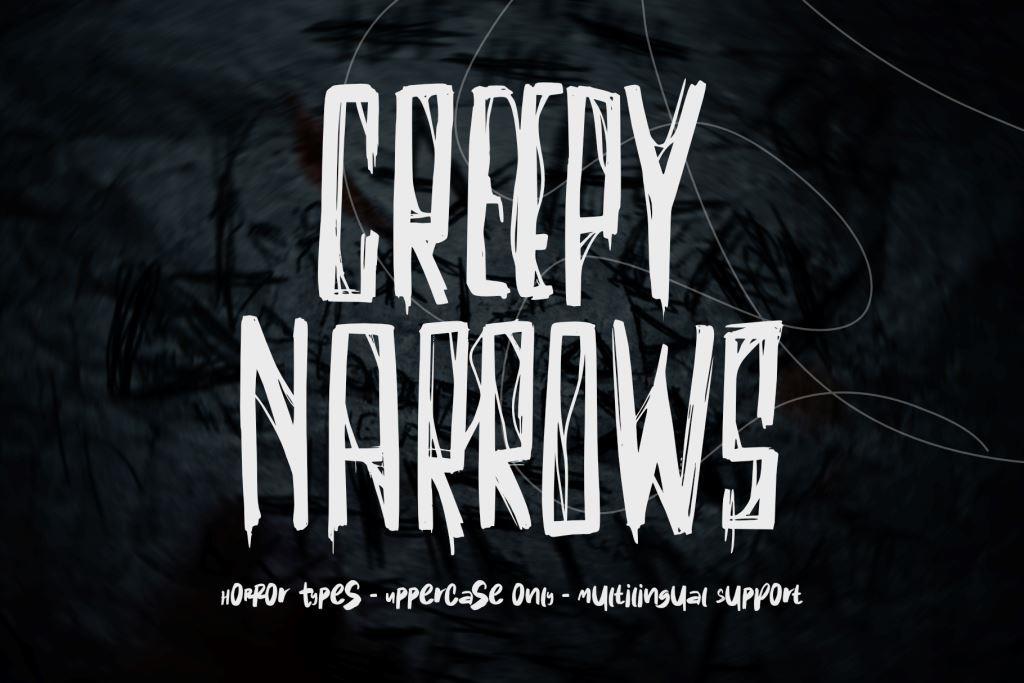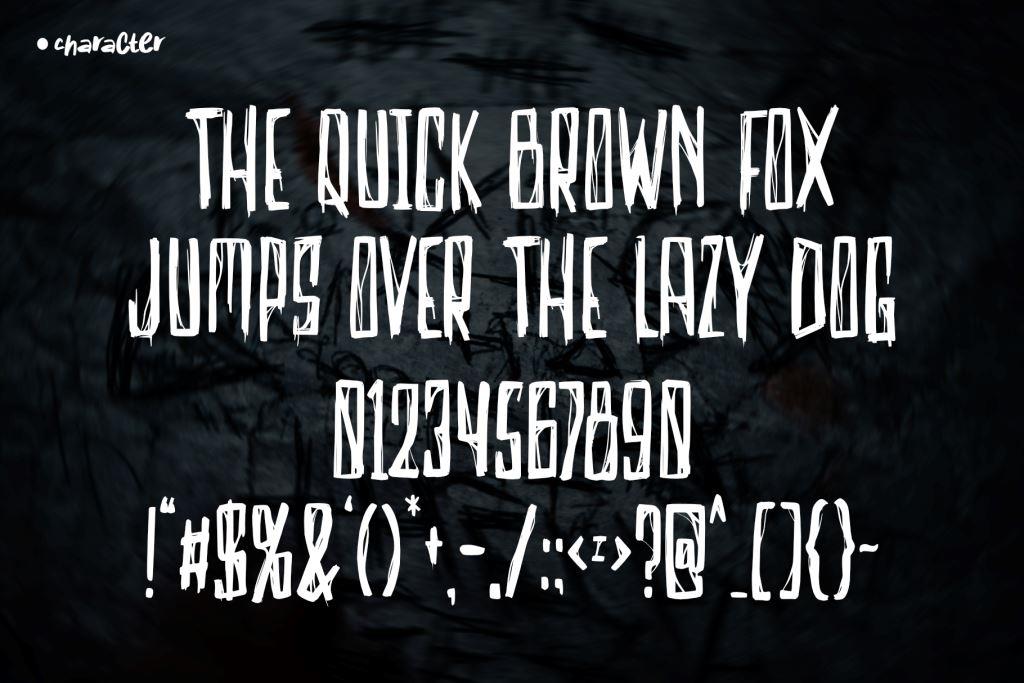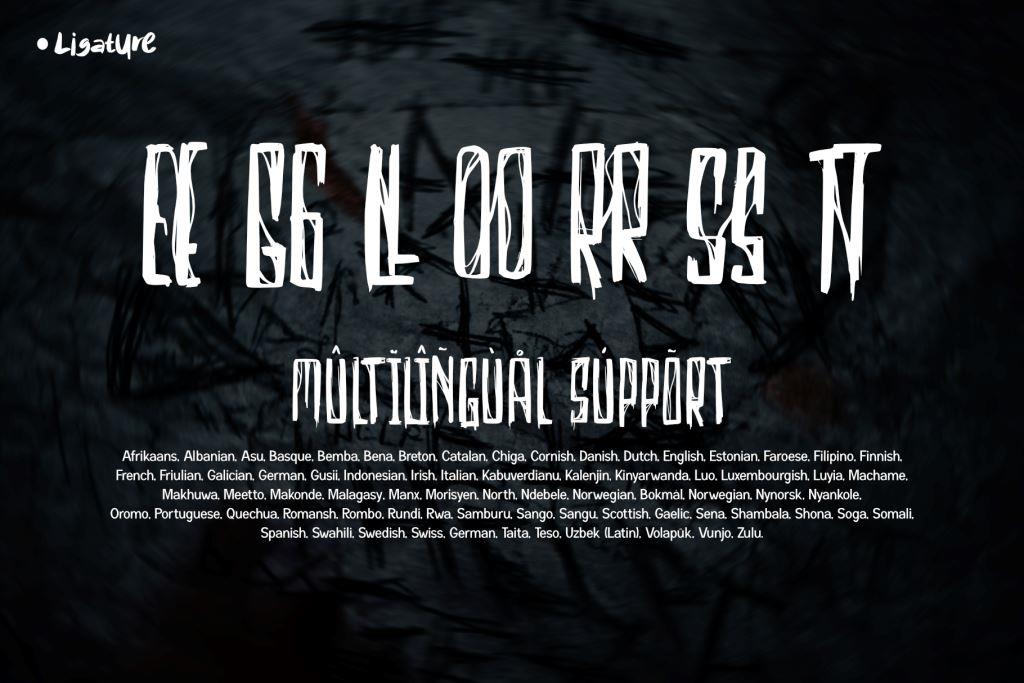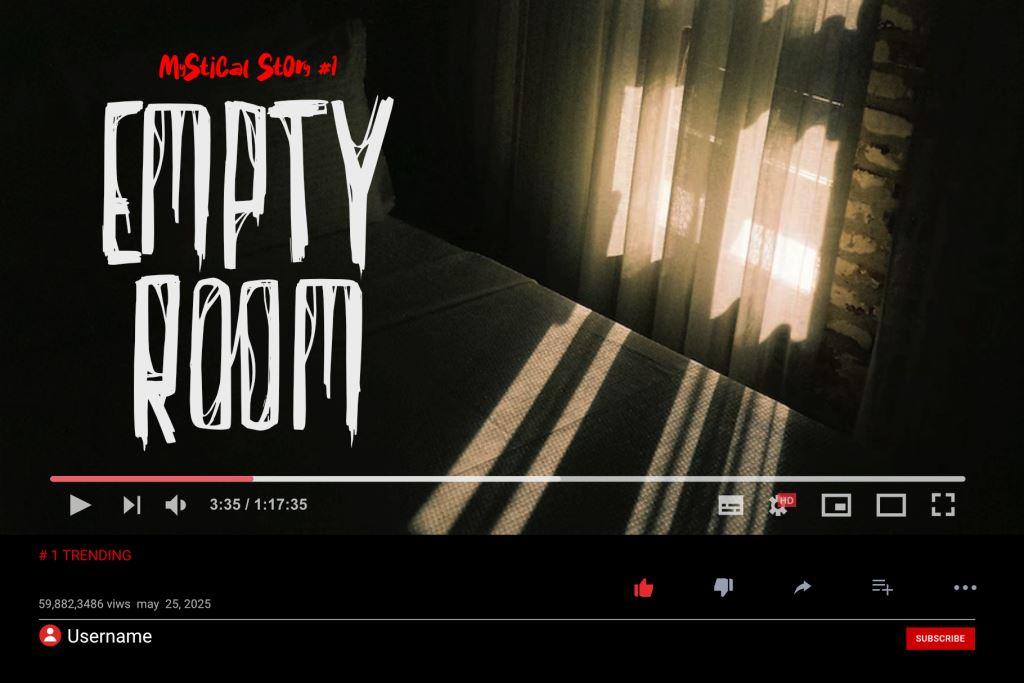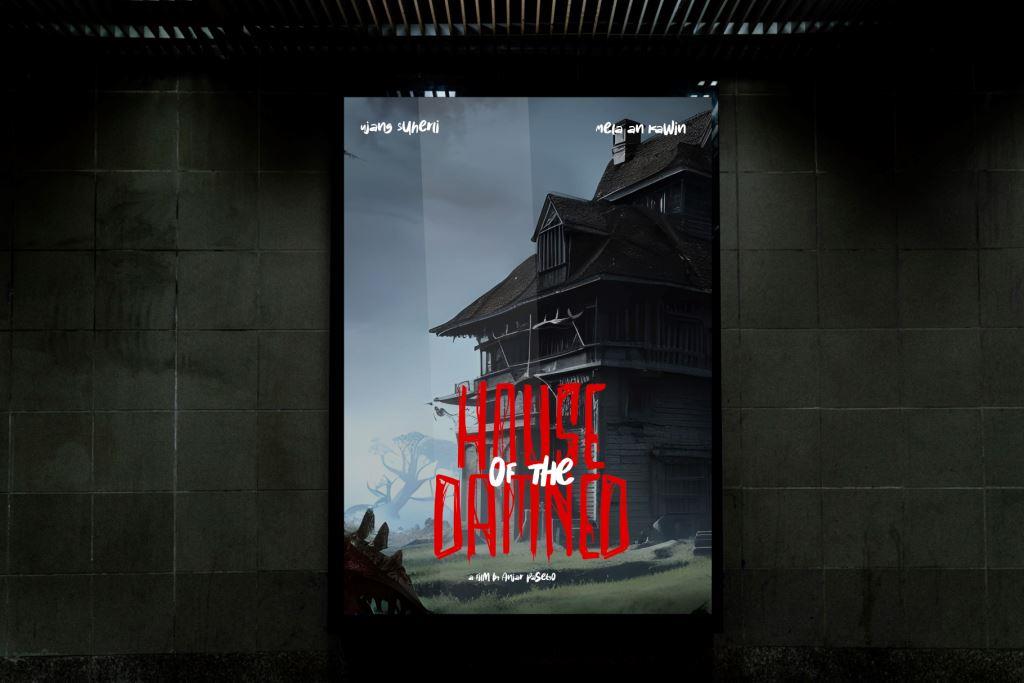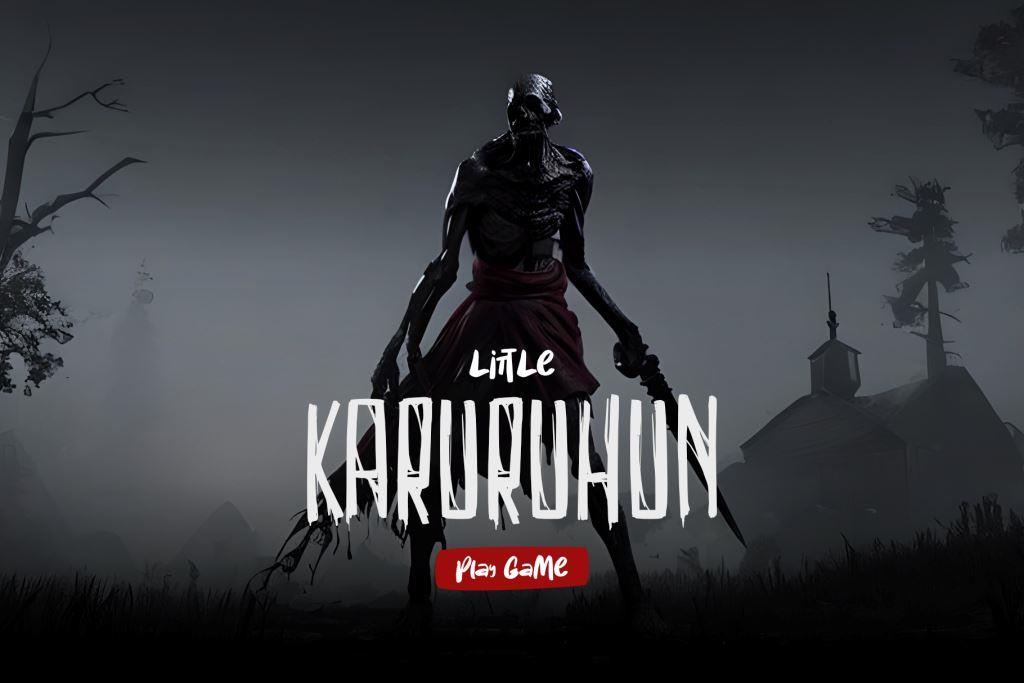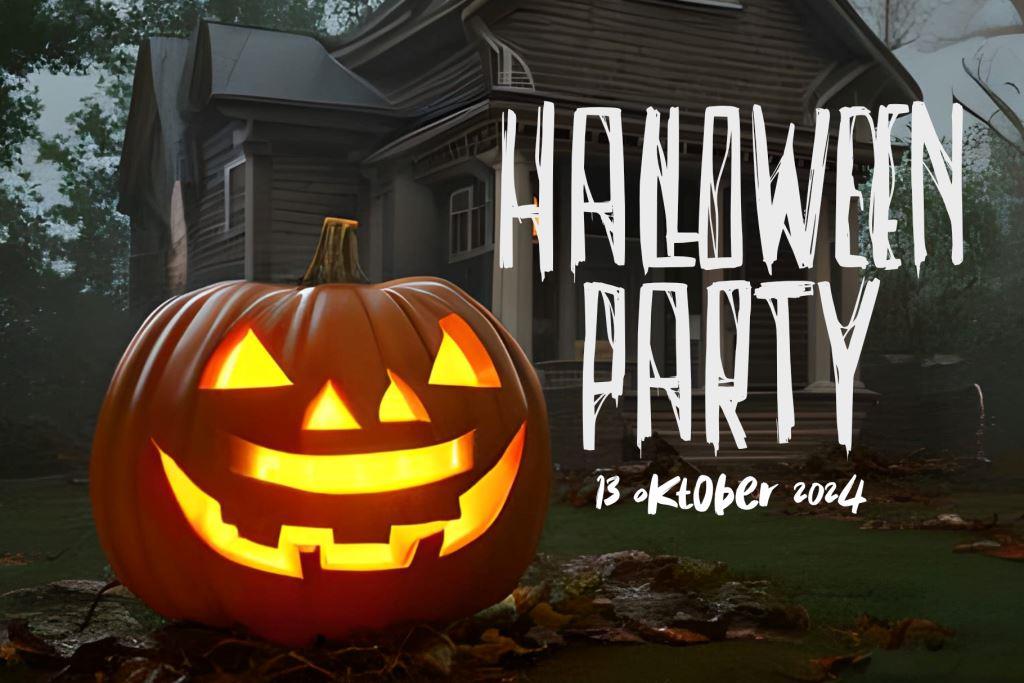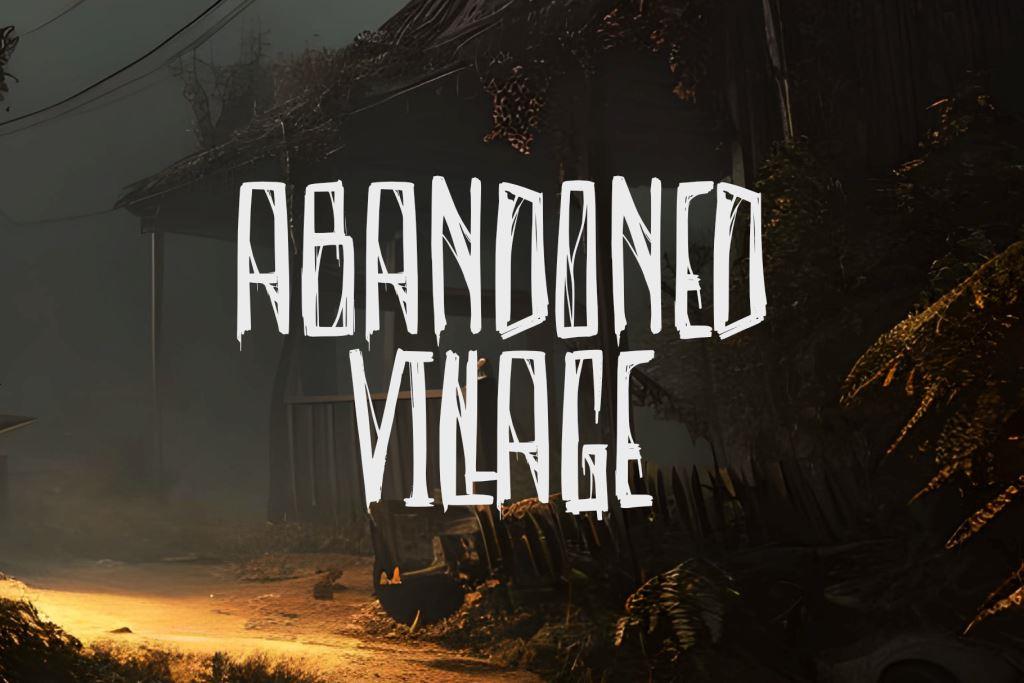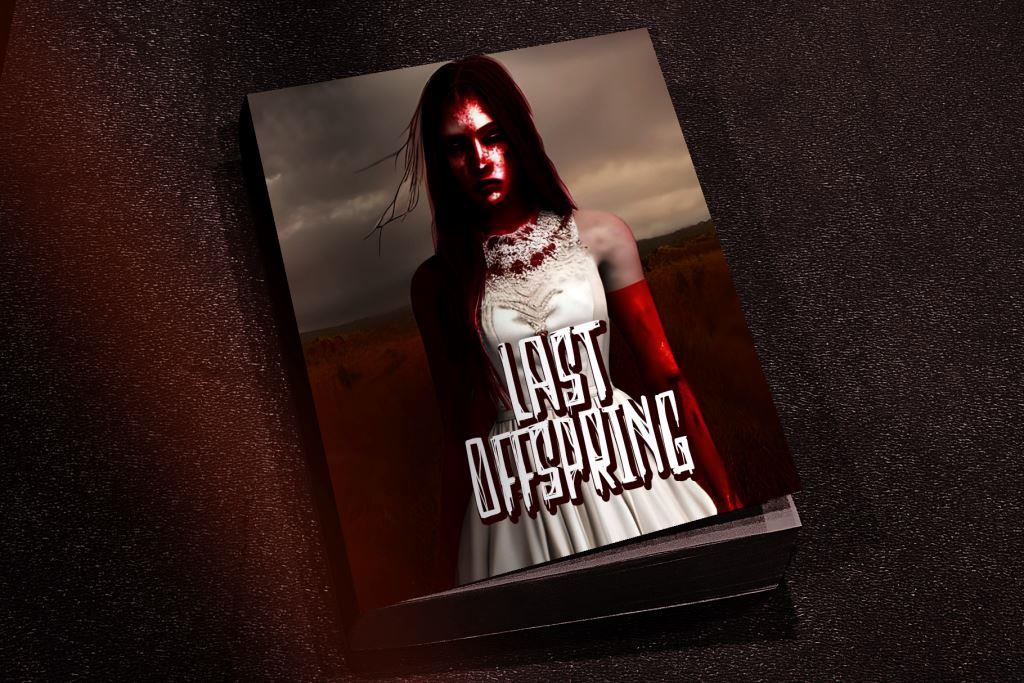
Creepy Narrows
“Creepy Narrows” is a unique and haunting font for designers. With its narrow typography and strong contrast, this font has a strong horror vibe that makes a difference in title designs for films, documentaries, YouTube, novels, posters, ghost books, Halloween costumes, and horror games.
This font can easily be applied to various types of projects, whether for creating a suspenseful film or documentary title, a poster for a Halloween event or ghost book, or even for creating an impressive horror game title. “Creepy Narrows” has characters that keep the eyes wide open and make the audience feel comfortable and easily swept away by the atmosphere.
This font is highly adjustable and offers a variety of letter variations that allow you to customize the font to suit your project needs. “Creepy Narrows” can be used to create designs that look frightening, captivating, and make a difference.
+ Standard glyphs
+ Uppercase Only
+ Multilingual Accent
Afrikaans, Albanian, Asu, Basque, Bemba, Bena, Breton, Catalan, Chiga, Cornish, Danish, Dutch, English, Estonian, Faroese, Filipino, Finnish, French, Friulian, Galician, German, Gusii, Indonesian, Irish, Italian, Kabuverdianu, Kalenjin, Kinyarwanda, Luo, Luxembourgish, Luyia, Machame, Makhuwa, Meetto, Makonde, Malagasy, Manx, Morisyen, North, Ndebele, Norwegian, Bokmål, Norwegian, Nynorsk, Nyankole, Oromo, Portuguese, Quechua, Romansh, Rombo, Rundi, Rwa, Samburu, Sango, Sangu, Scottish, Gaelic, Sena, Shambala, Shona, Soga, Somali, Spanish, Swahili, Swedish, Swiss, German, Taita, Teso, Uzbek (Latin), Volapük, Vunjo, Zulu.